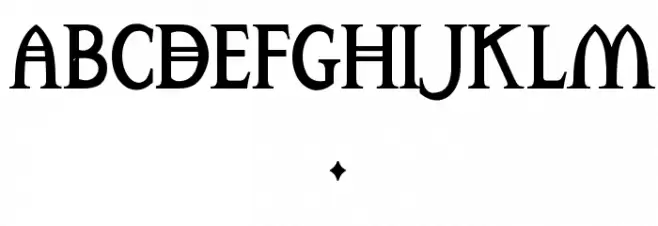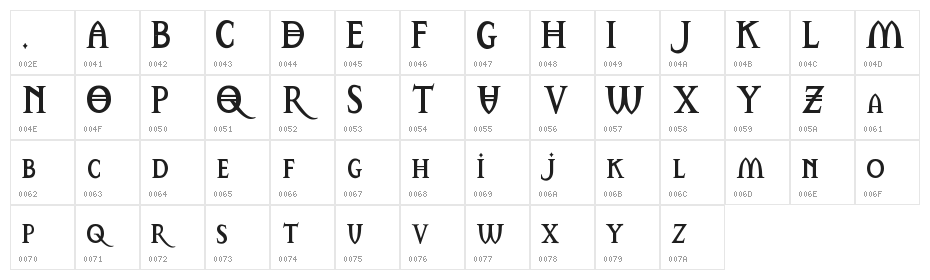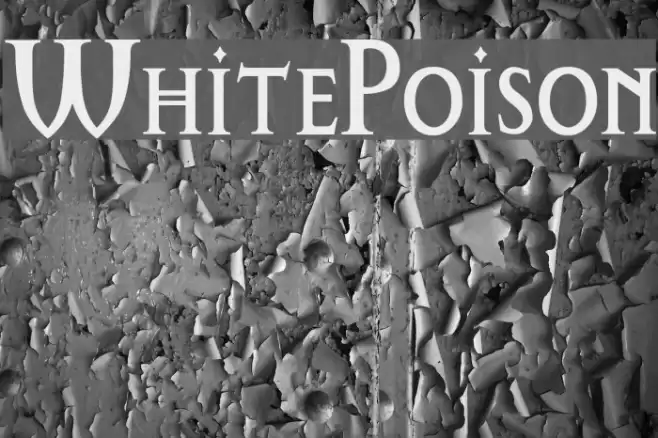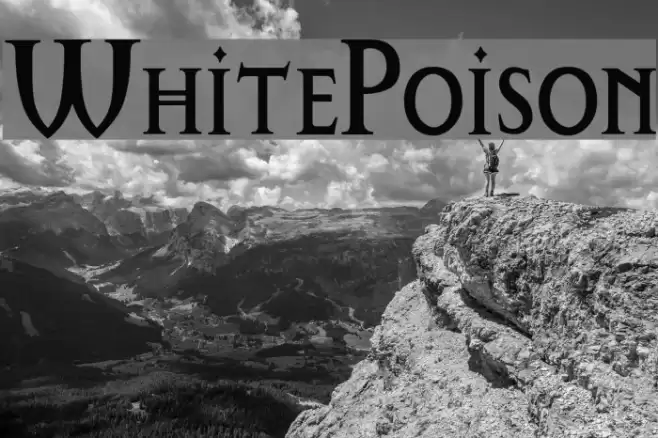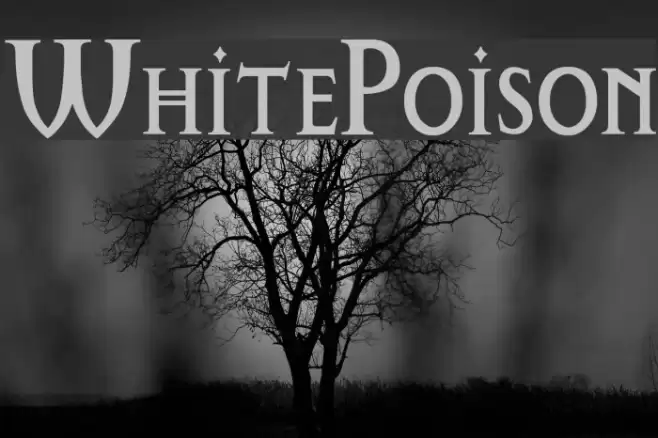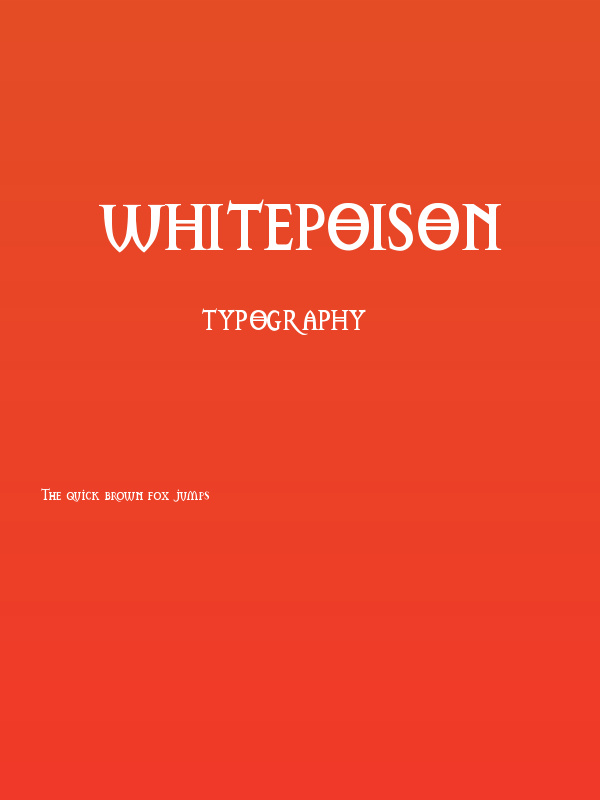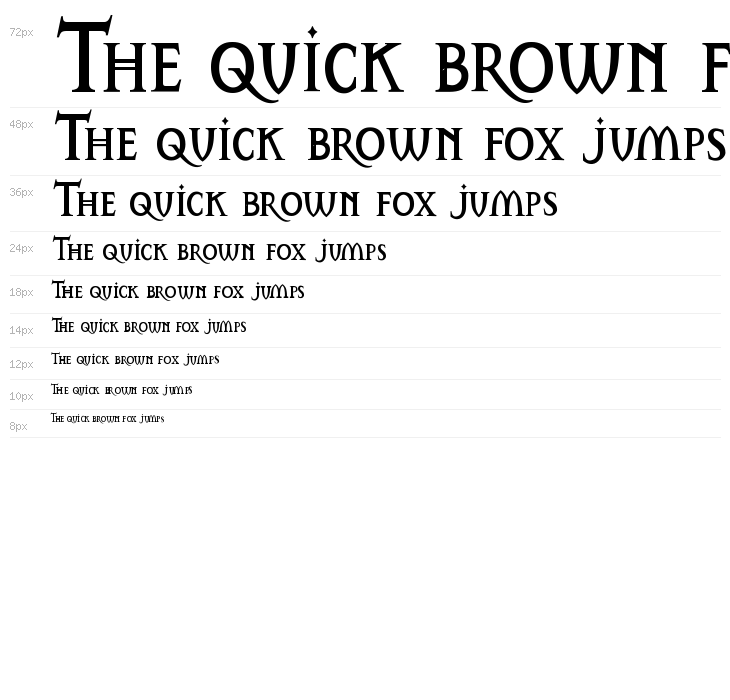
WhitePoison Font
WhitePoison Description
This font exhibits a unique blend of traditional and modern elements, characterized by its distinct, sharp serifs and bold strokes. The uppercase letters feature a striking presence with their angular and slightly curved lines, creating a sense of elegance and authority. The lowercase letters maintain a consistent style, complementing the uppercase with their balanced proportions. The numerals are clear and legible, adhering to the overall aesthetic of the typeface. Special characters are thoughtfully designed, ensuring versatility in various applications. This font's design is both artistic and functional, making it suitable for a wide range of creative projects.
| Use Case | Headlines, Logos, Editorial design |
| Proposed Projects | Ideal for branding, editorial design, book covers, and high-impact headlines. |